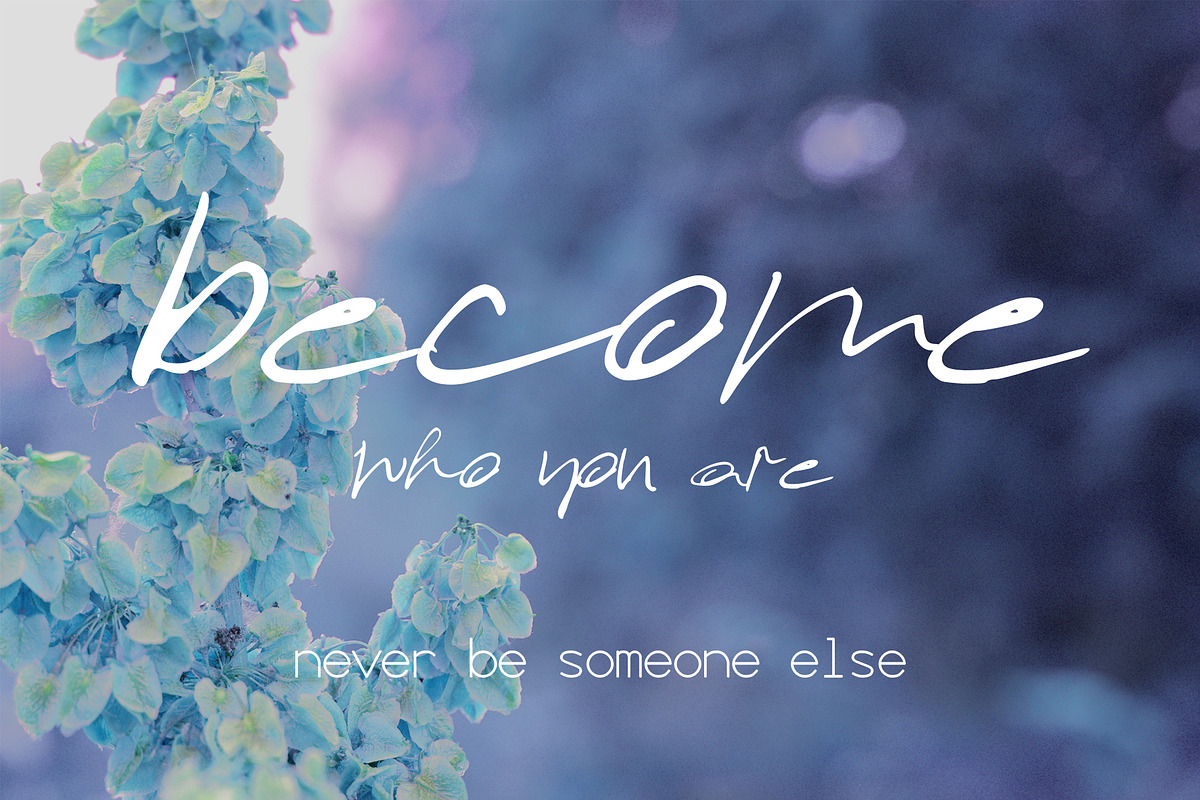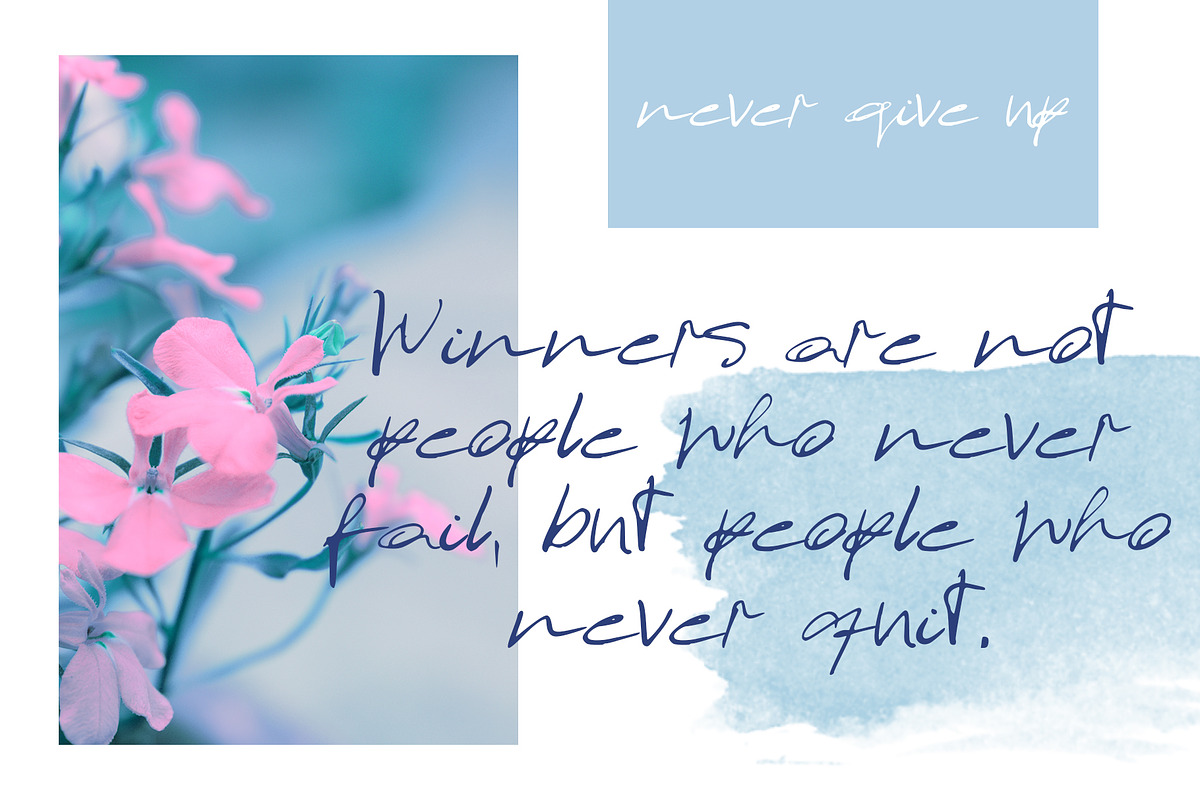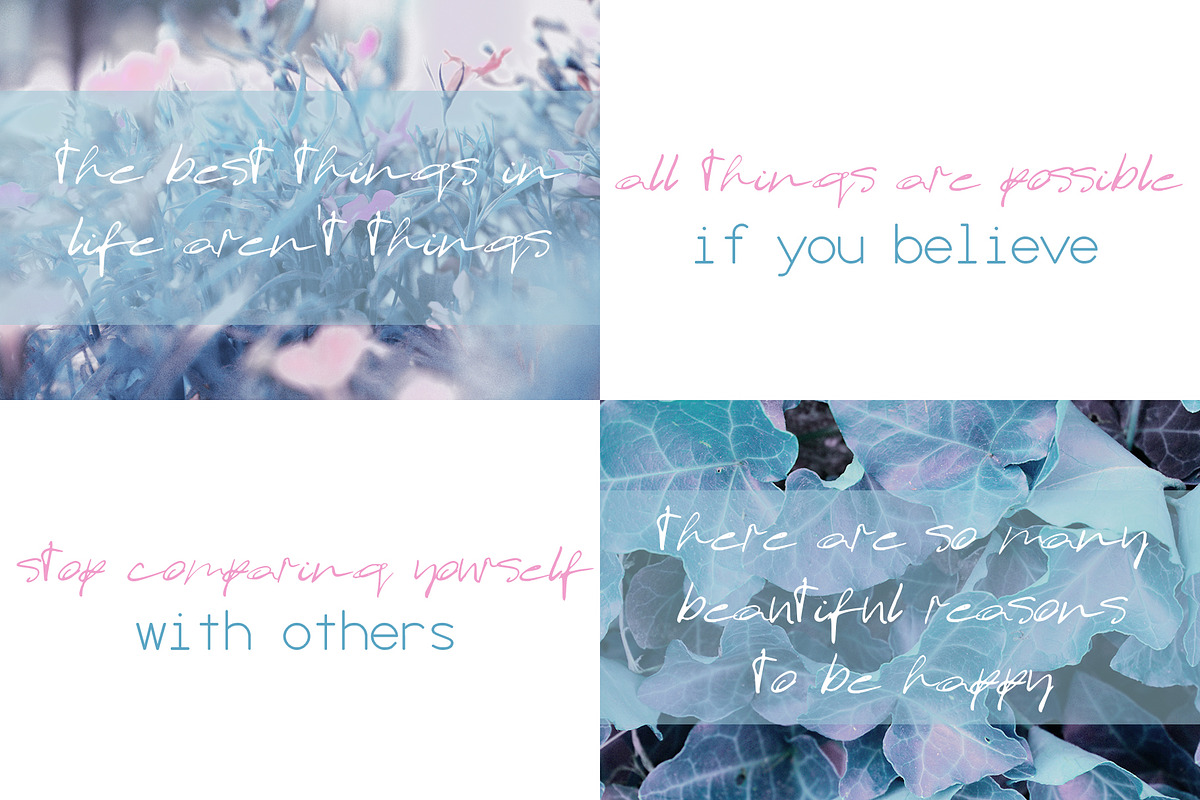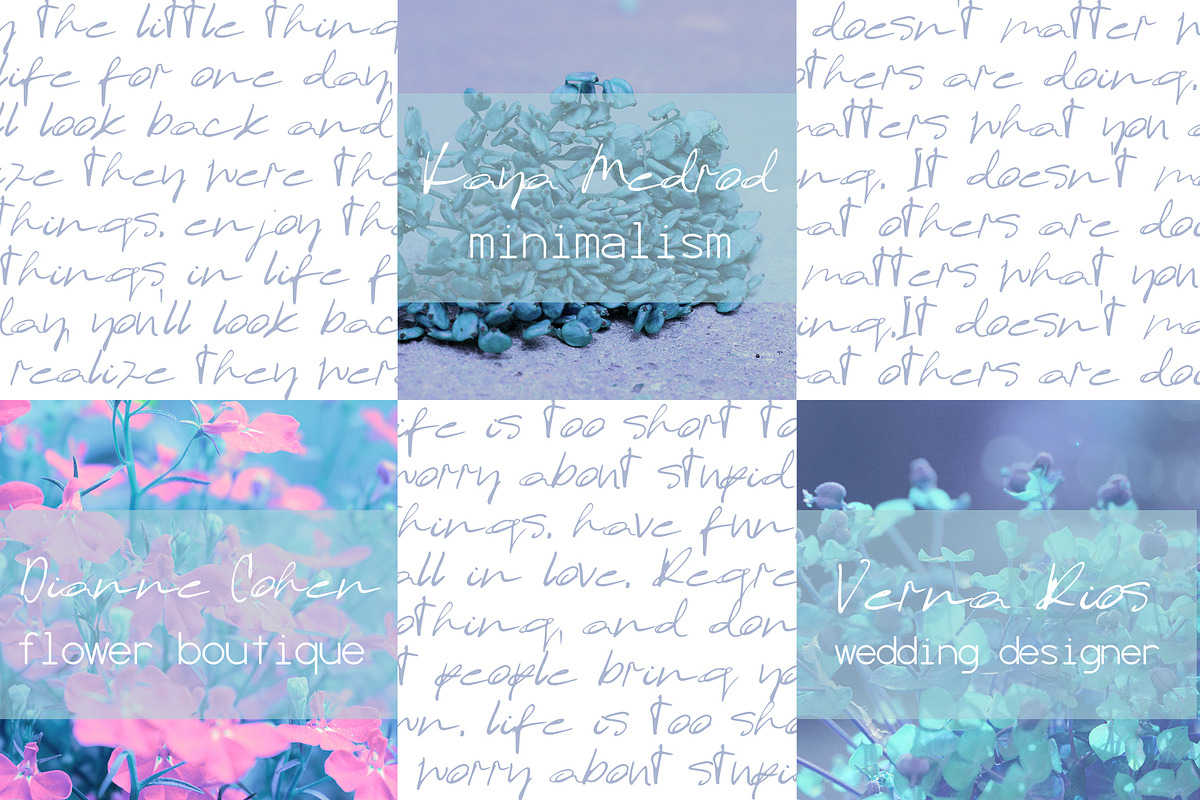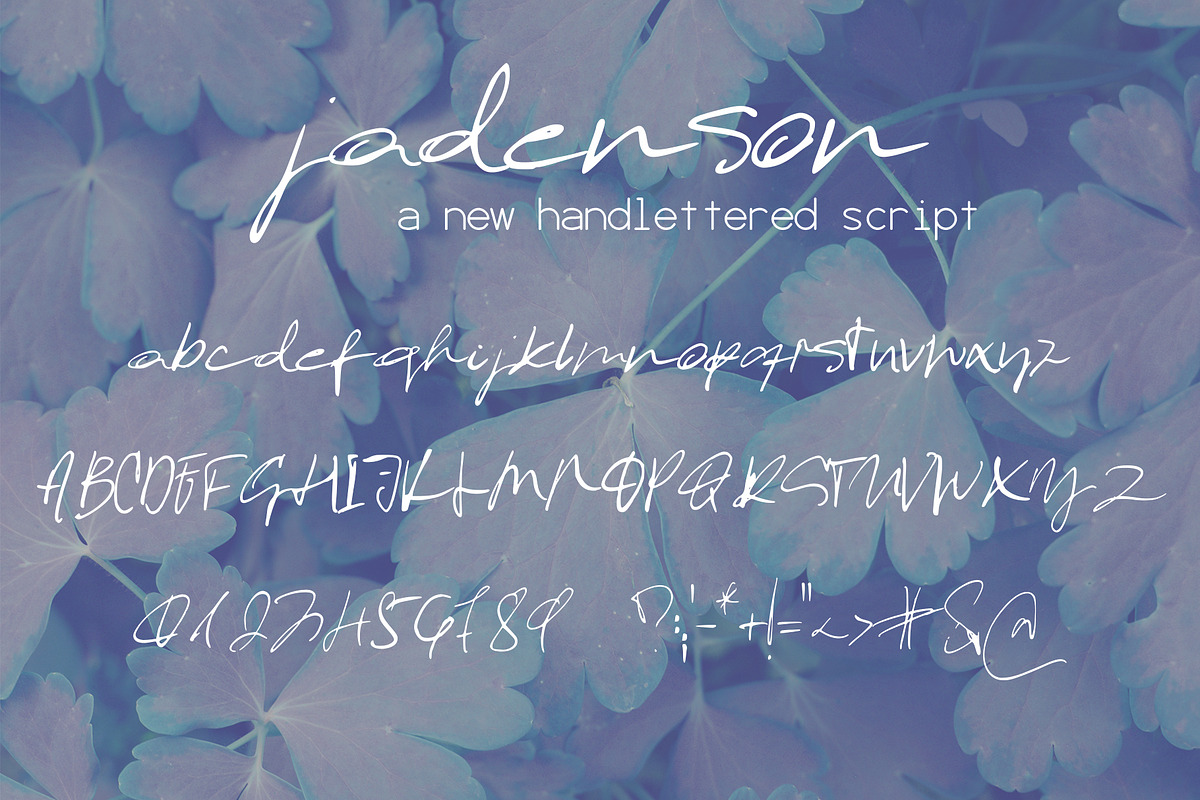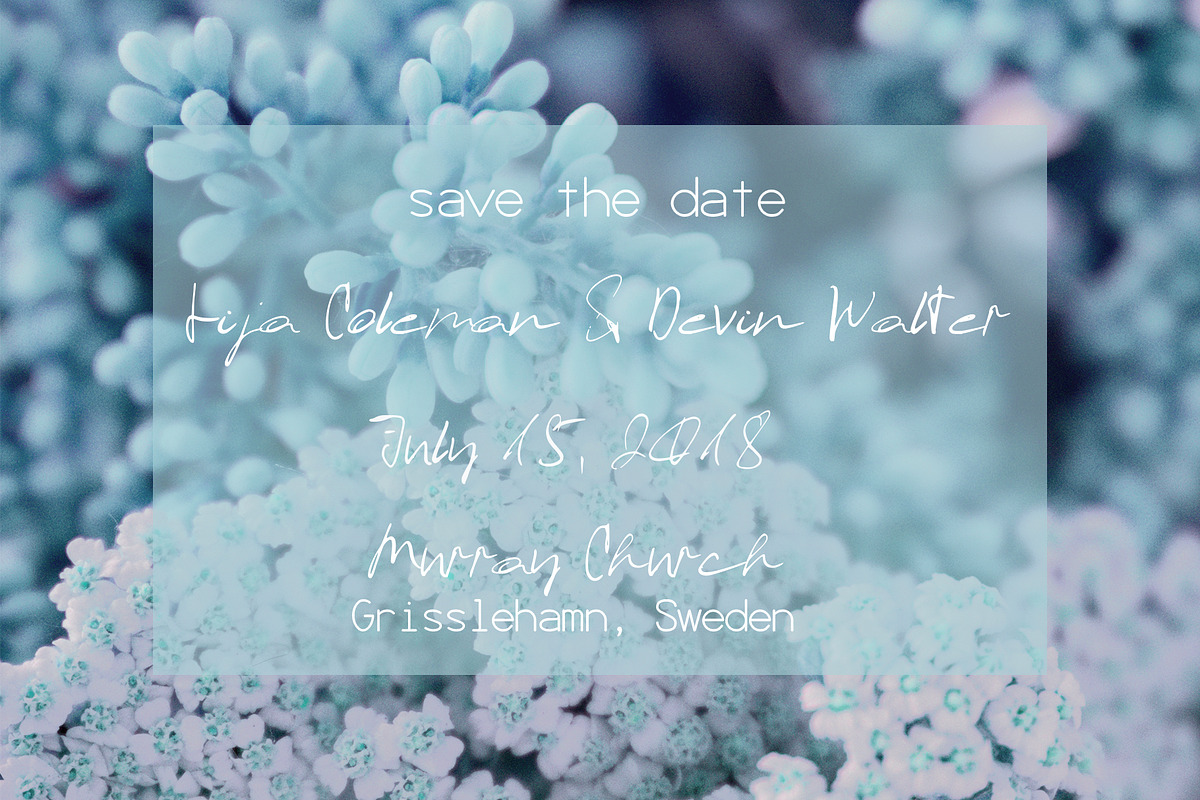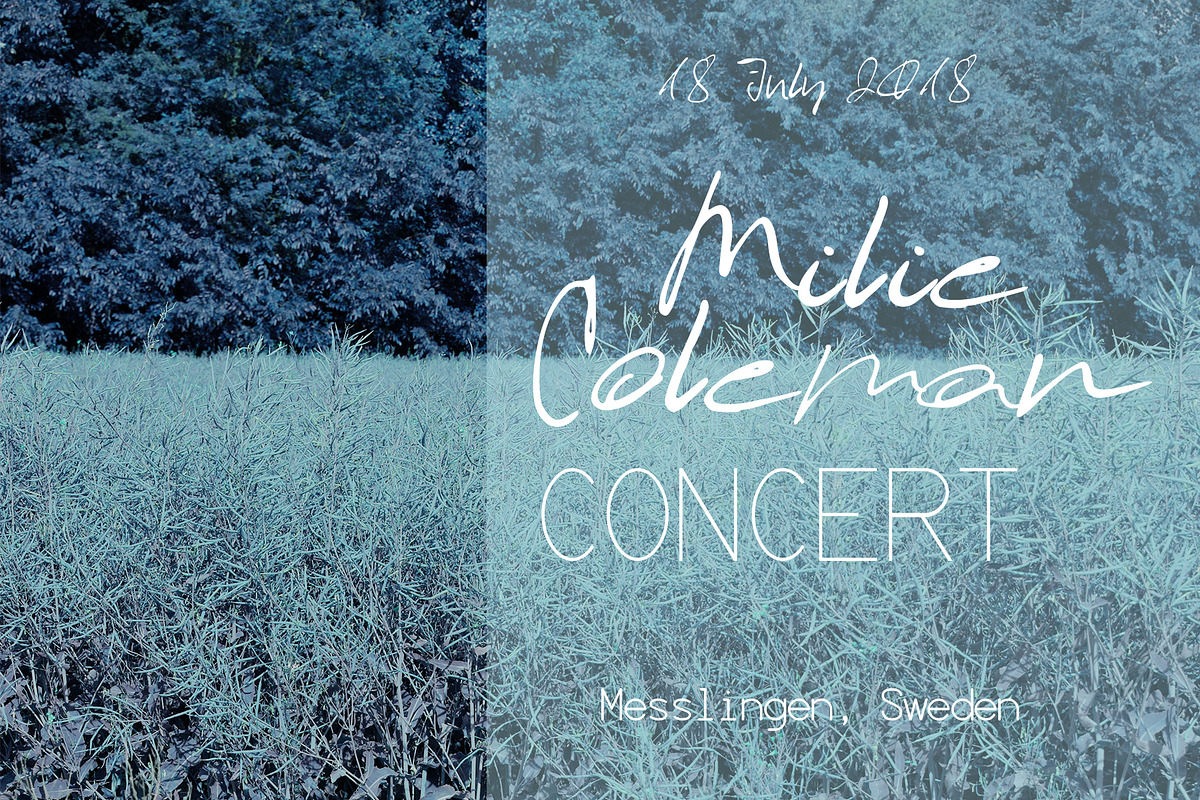
Jadenson Font
Introducing Jadenson, an elegant handwritten script.💗 Perfect for any graphic and logo designs, wedding and birthday invitations.
- Jadenson font contains uppercase & lowercase characters, numbers and punctuations.
Jadenson Font by SophieSaxo fits naturally into Branding, posters, packaging, typography.